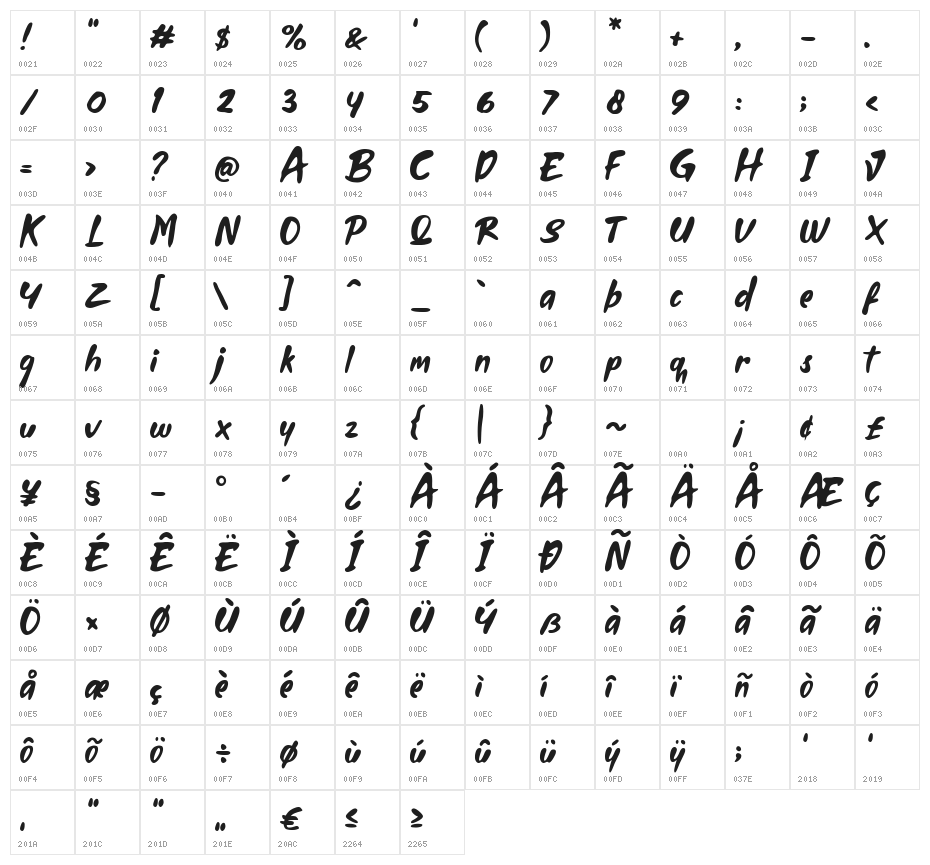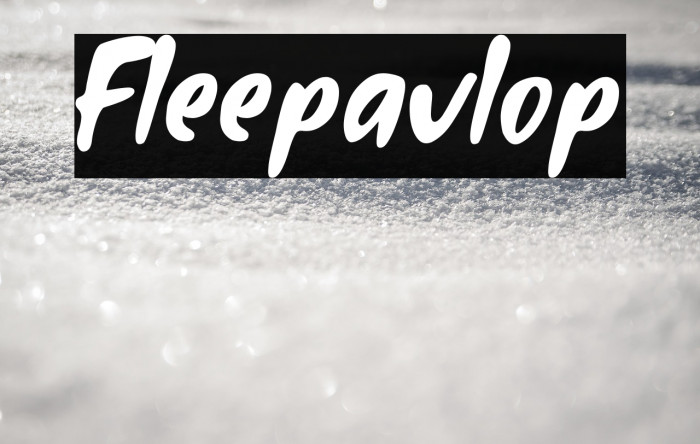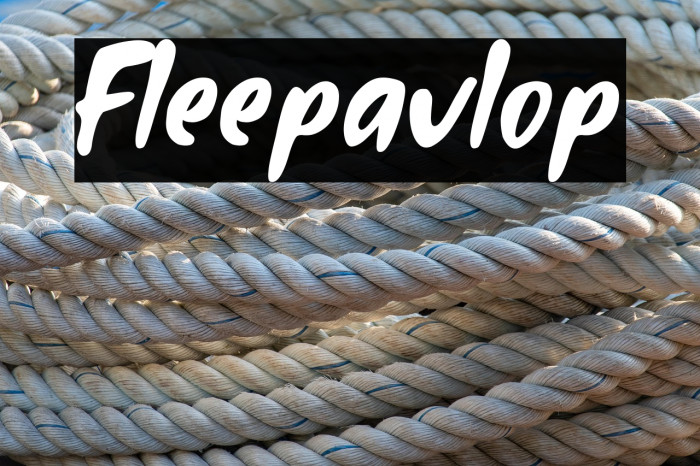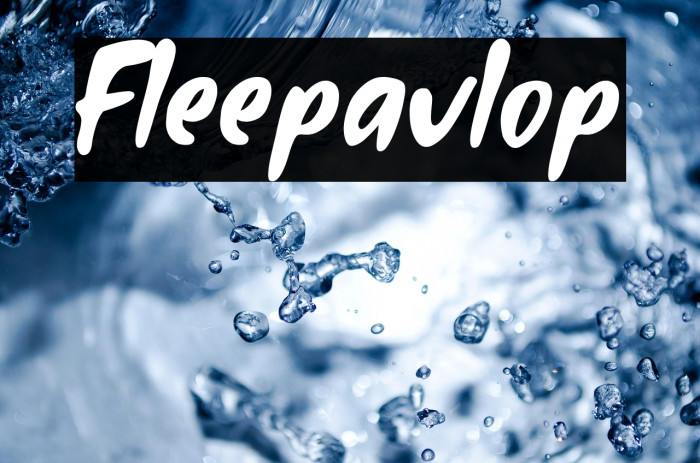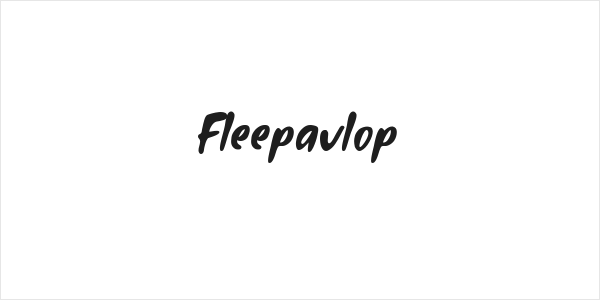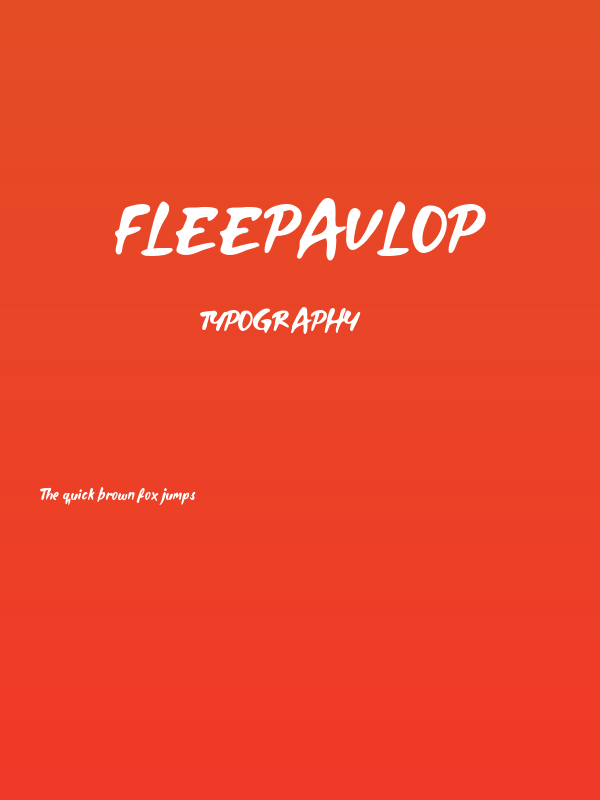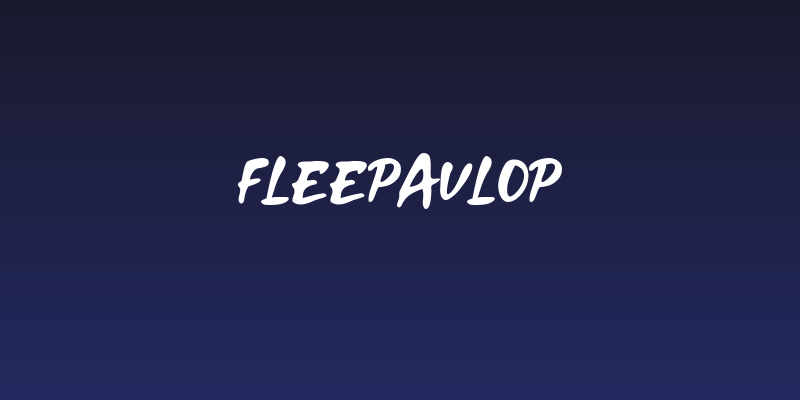
Fleepavlop Font
Fleepavlop Description
This font features a bold and dynamic script style with a handwritten appearance. The characters are fluid and slightly slanted, giving a sense of motion and energy. The strokes are thick and consistent, providing a strong visual impact. The uppercase letters are slightly larger and more pronounced, while the lowercase letters maintain a cohesive flow. Numbers and special characters are designed to match the overall style, ensuring uniformity across all glyphs. The font's playful and informal nature makes it suitable for creative and expressive projects.
| Proposed Projects | Ideal for branding, posters, invitations, and any project requiring a personal touch. |